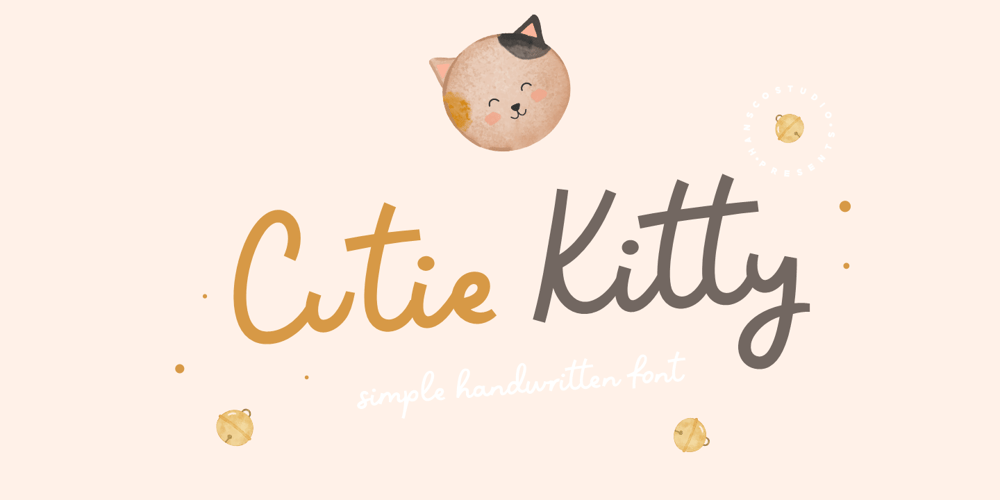
Cutie Kitty Font Family was designed by Burhan Afif and published by HansCo. Cutie Kitty contains 1 styles and family package options. Cutie Kitty Font is a simple, modern and natural handwritten font. This font is perfect for creating logo, watermark, branding, wedding invitation, quote, tagline, or anything else. Let’s make something beautiful project with this.Enjoy!